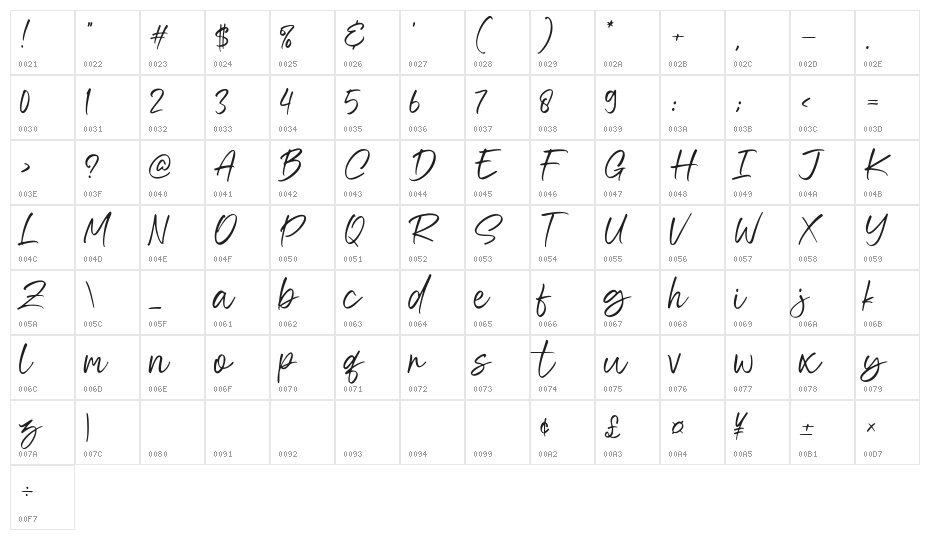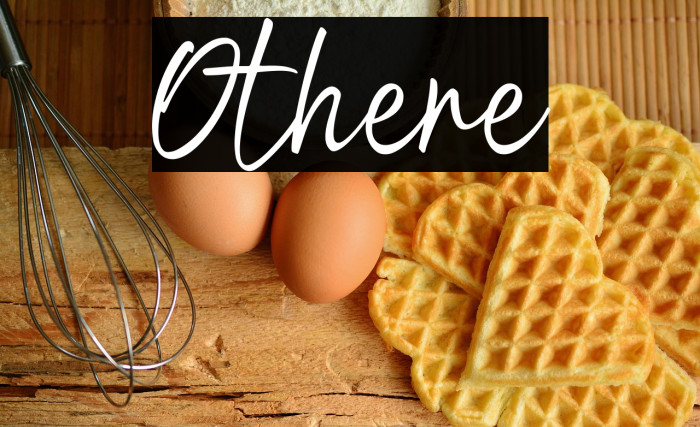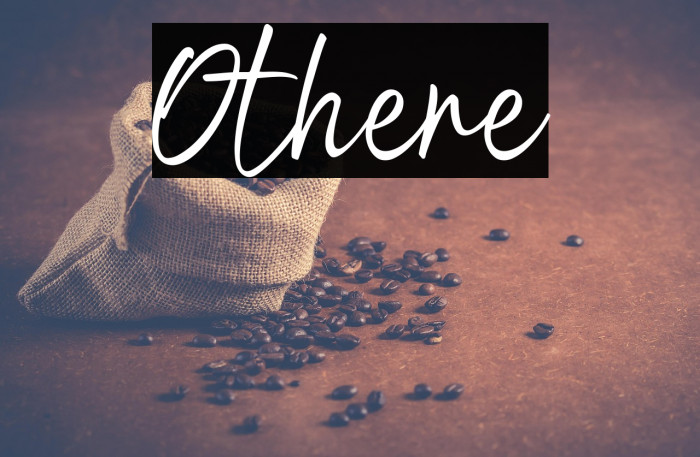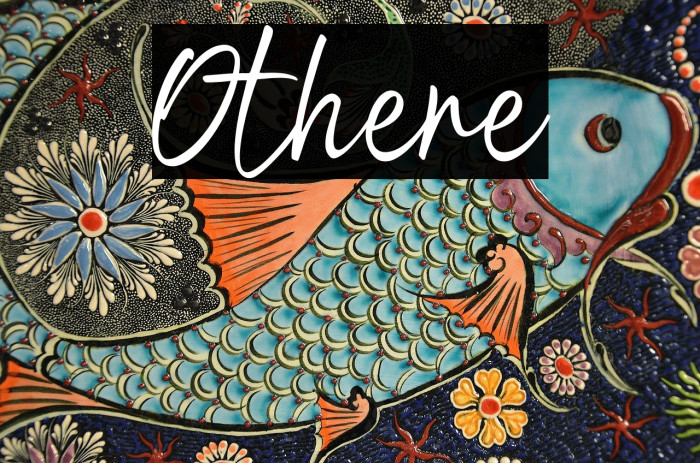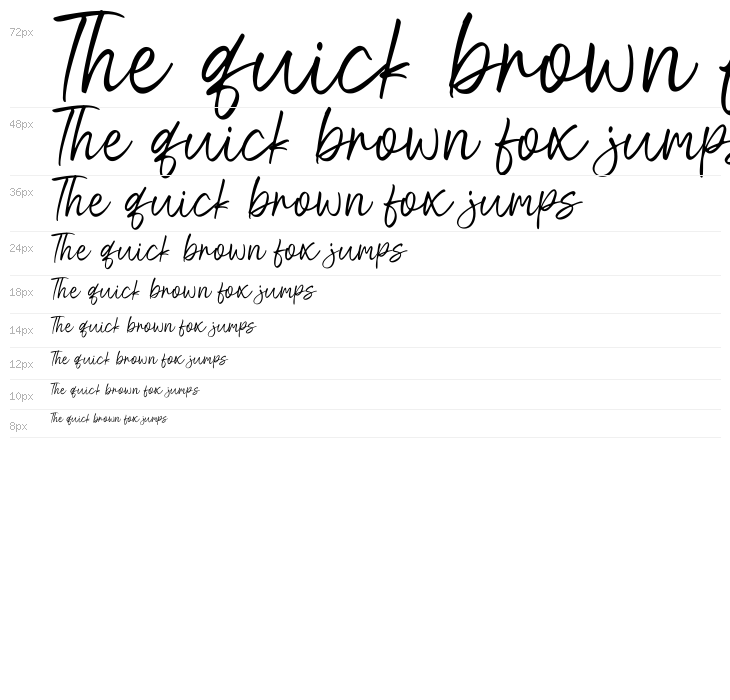
Othere Font
Othere Description
This font exudes a lively and dynamic handwritten style, characterized by its fluid and cursive strokes. The letters are connected in a natural flow, giving it an authentic and personal touch. The uppercase letters maintain a consistent height, while the lowercase letters vary in size, adding to the casual and spontaneous feel. The numerals and special characters are crafted with the same playful energy, ensuring a cohesive look across all elements. The overall appearance is both elegant and approachable, making it suitable for a variety of creative applications.
| Use Case | Logos, Invitations, Greeting Cards |
| Proposed Projects | Ideal for greeting cards, invitations, personal branding, and creative projects that require a personal touch. |